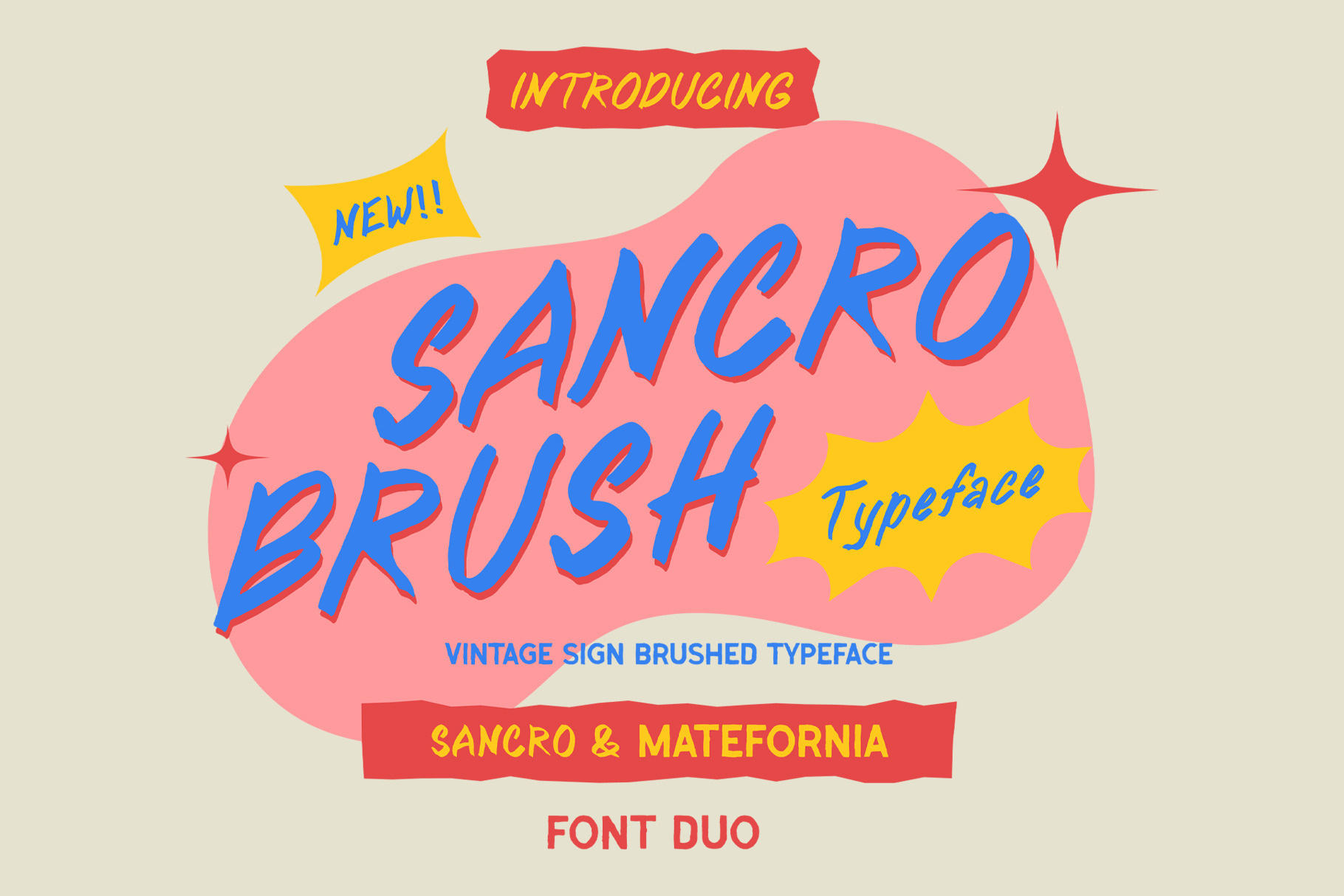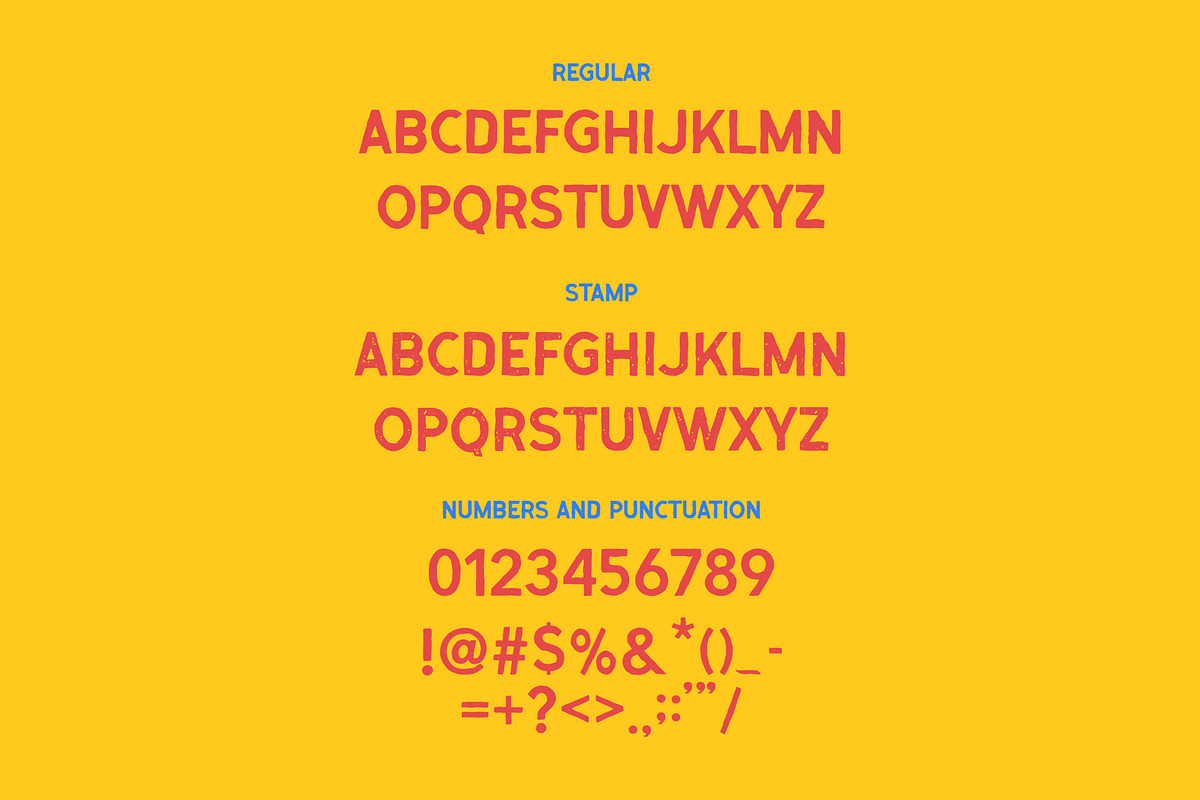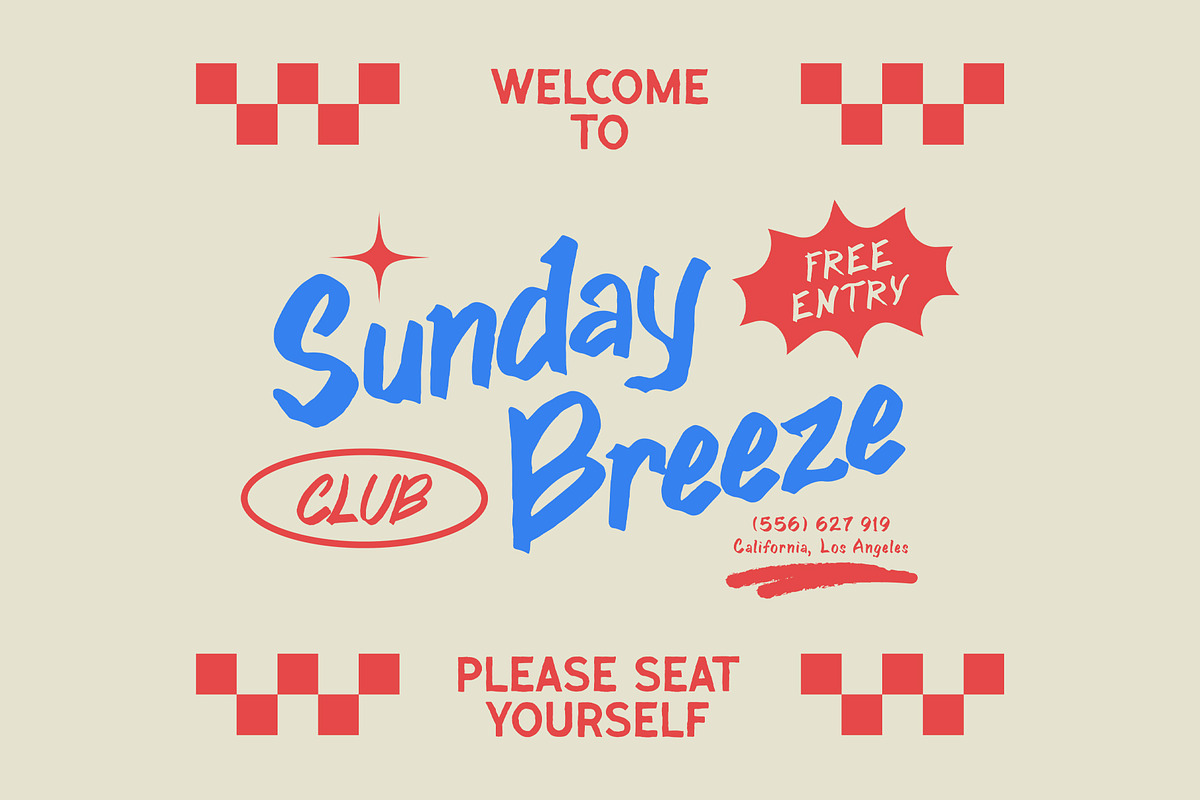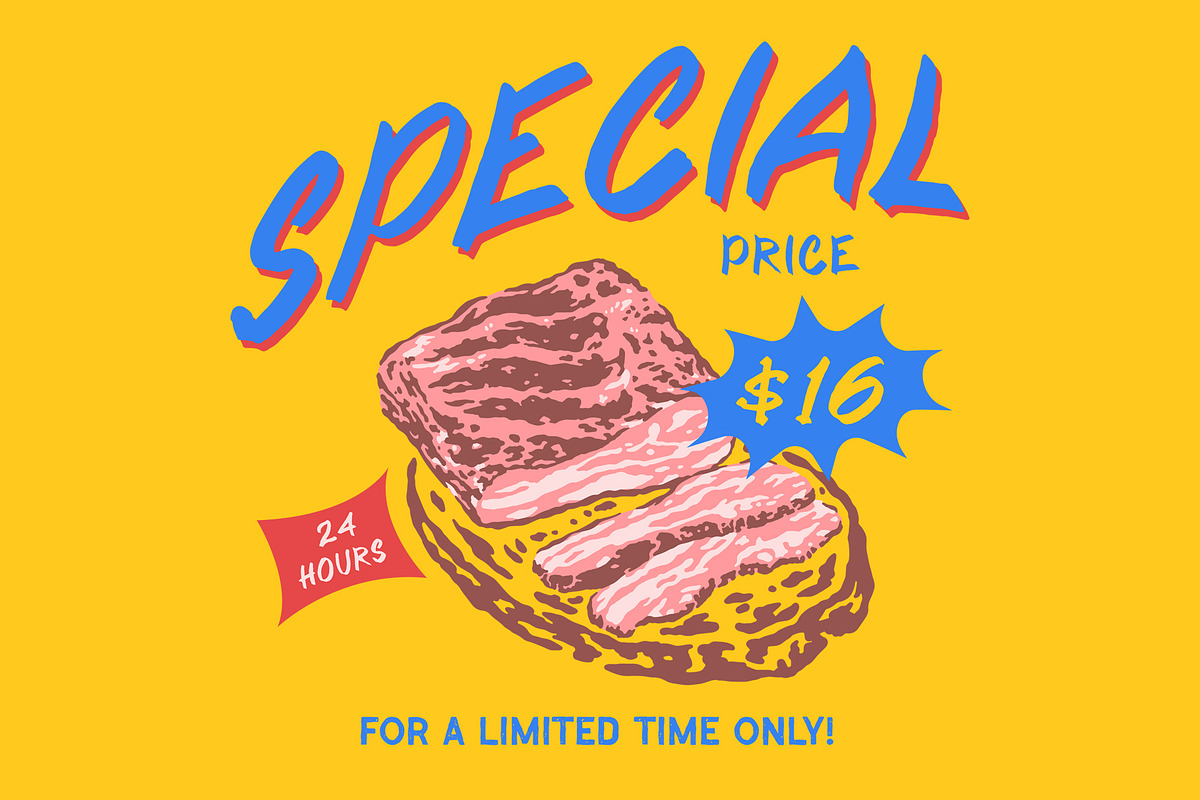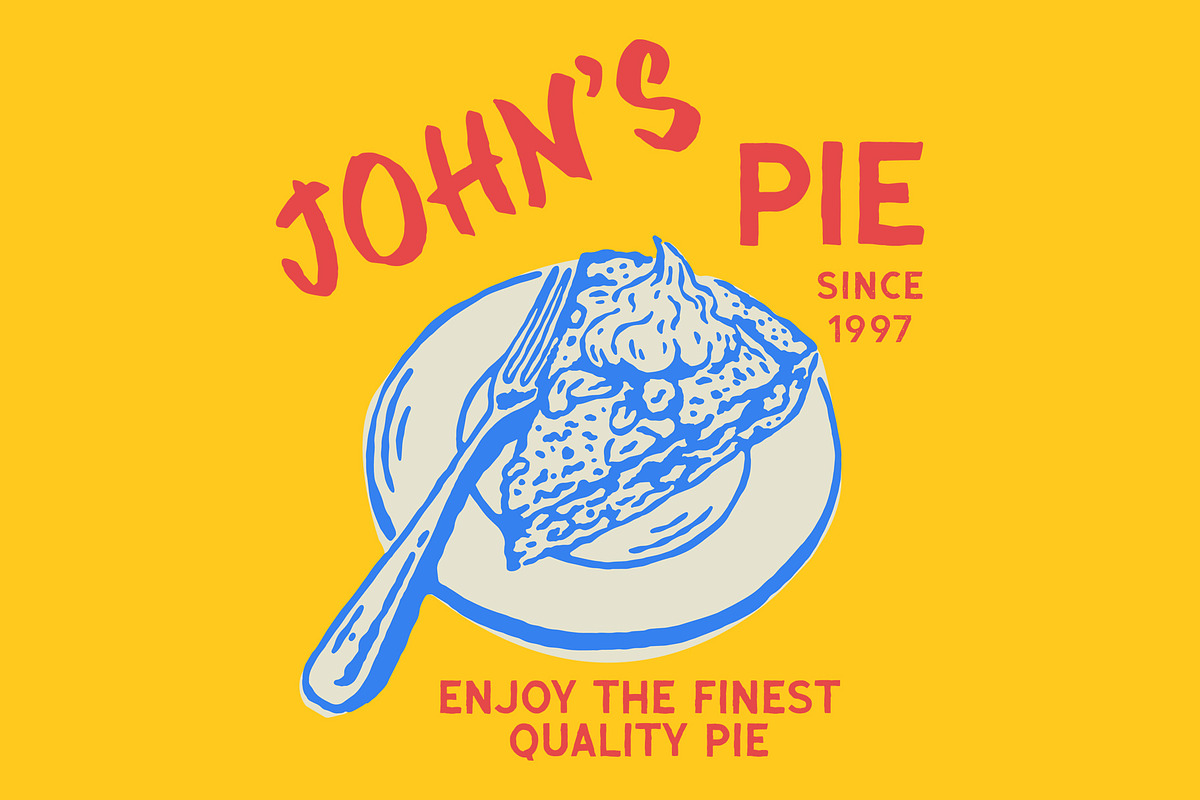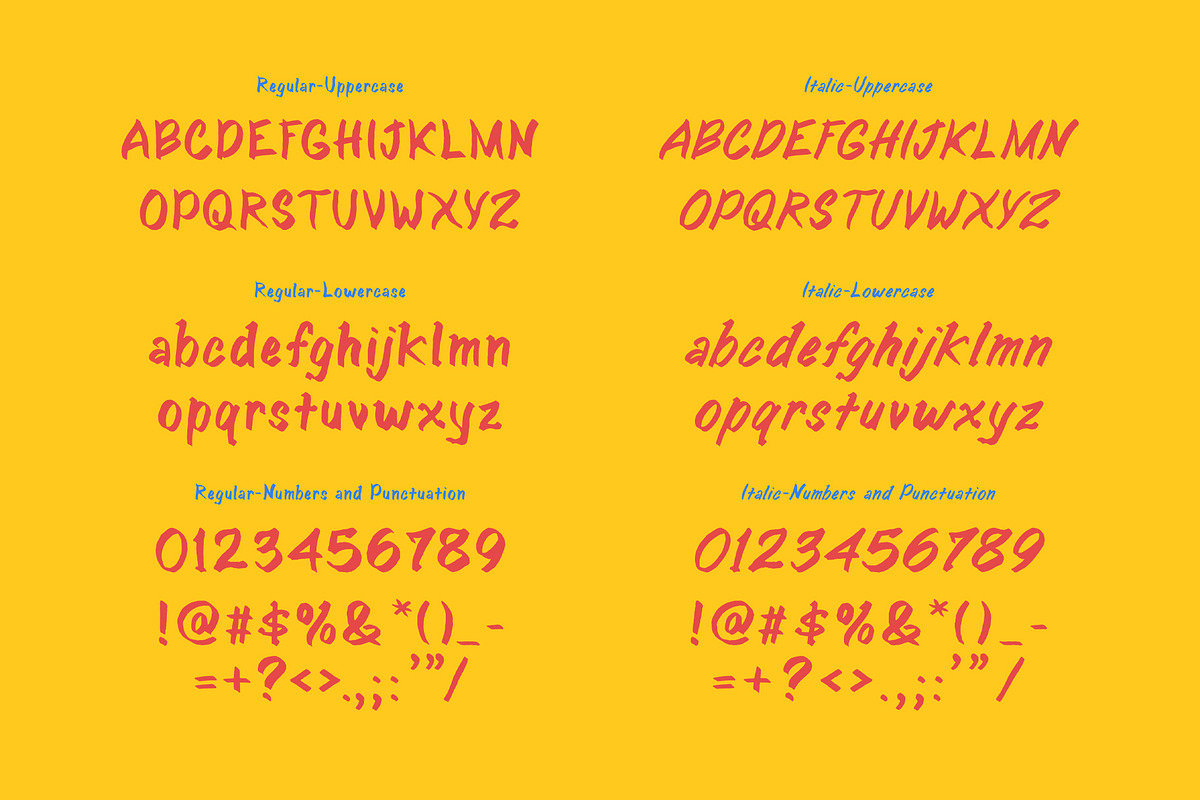
SANCRO BRUSH TYPEFACE - FONT DUO
Sancro Brush Typeface – Font Duo
Bring bold energy and nostalgic charm to your designs with Sancro Brush, a vintage sign brushed typeface duo that combines retro flair with hand-painted brush detail. Inspired by classic storefronts, diner signs, and vibrant poster art, this font duo includes both Sancro and Matefornia for maximum versatility.
Branding & logos Poster design Signage Retro-themed graphics Packaging Editorial titles
Inject playful character and timeless style into your creative work with the Sancro Brush Font Duo!